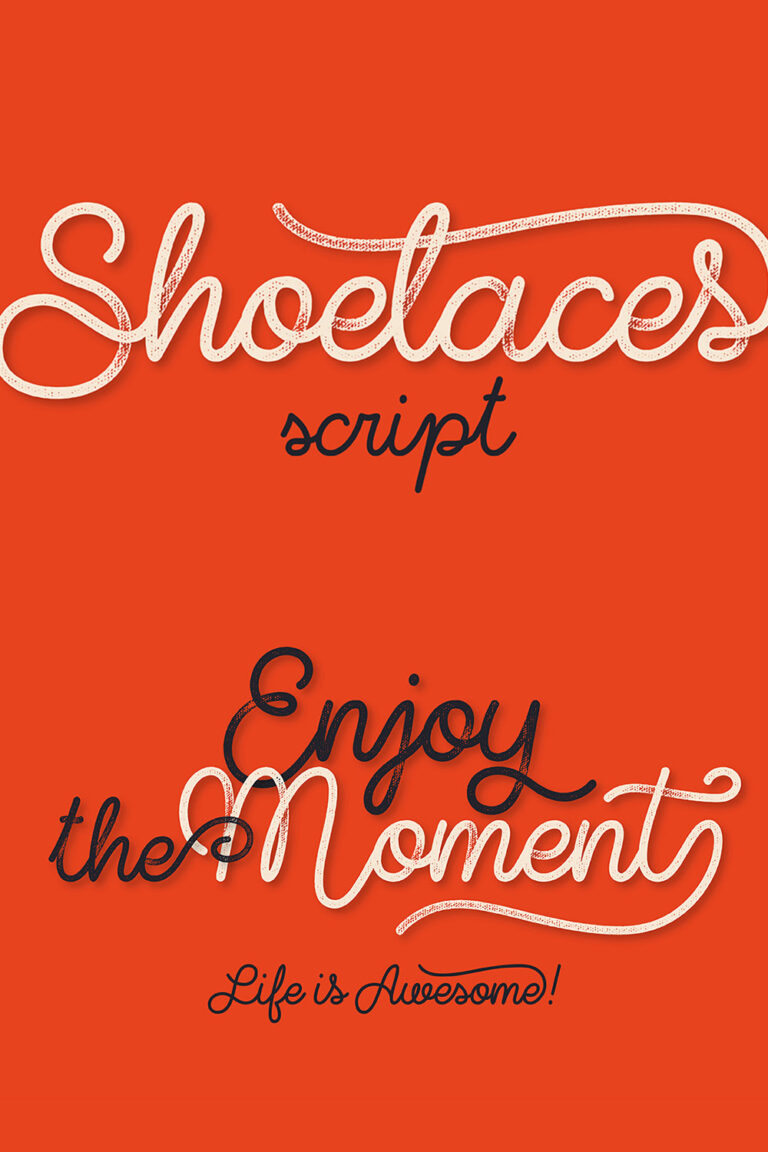
Shoelaces Font Free Download . It also includes a clean version without texture. Designed by crazeco.com.au, this font is. Introducing a simple line font with textured effect named “shoelaces”. Fonts with this tag often feature. See how to download shoelaces for free! Opentype features (ligatures and alternates) helps to make your. Size shoelace font by crazeco.com.au. The full version of this font is for commercial use, buy it here. Collection of fonts for shoelaces. A great choice for highlighting your design elements. Shoelace font is a unique and creative decorative font that is perfect for adding a fun and playful touch to any project. Shoelaces font is a unique script typeface that has opentype. Shoelace fonts a playful and casual style reminiscent of the loops and curves of actual shoelaces. The font that's a cursive dance of aesthetic creativity, inspired by the twists and turns of shoelaces! In fancy > decorative 45,337 downloads (1 yesterday) 1.
Size shoelace font by crazeco.com.au. The full version of this font is for commercial use, buy it here. Fonts with this tag often feature. The font that's a cursive dance of aesthetic creativity, inspired by the twists and turns of shoelaces! See how to download shoelaces for free! Its design captures the whimsy of cursive handwriting with a unique twist. A great choice for highlighting your design elements. Shoelace font is a unique and creative decorative font that is perfect for adding a fun and playful touch to any project. Shoelaces font is a unique script typeface that has opentype. Opentype features (ligatures and alternates) helps to make your.
Shoelaces Font Free Download Designed by crazeco.com.au, this font is. See how to download shoelaces for free! Designed by crazeco.com.au, this font is. Collection of fonts for shoelaces. Its design captures the whimsy of cursive handwriting with a unique twist. Opentype features (ligatures and alternates) helps to make your. In fancy > decorative 45,337 downloads (1 yesterday) 1. Shoelaces font is a unique script typeface that has opentype. A great choice for highlighting your design elements. The font that's a cursive dance of aesthetic creativity, inspired by the twists and turns of shoelaces! Shoelace font is a unique and creative decorative font that is perfect for adding a fun and playful touch to any project. Fonts with this tag often feature. It also includes a clean version without texture. Introducing a simple line font with textured effect named “shoelaces”. The full version of this font is for commercial use, buy it here. Size shoelace font by crazeco.com.au.
Shoe Laces Font Etsy Shoelaces Font Free Download Fonts with this tag often feature. Introducing a simple line font with textured effect named “shoelaces”. See how to download shoelaces for free! Its design captures the whimsy of cursive handwriting with a unique twist. A great choice for highlighting your design elements. The font that's a cursive dance of aesthetic creativity, inspired by the twists and turns of shoelaces!. Shoelaces Font Free Download.
Shoelace Fonts A Creative Way To Express Yourself Shoelaces Font Free Download Size shoelace font by crazeco.com.au. It also includes a clean version without texture. Shoelaces font is a unique script typeface that has opentype. See how to download shoelaces for free! Shoelace font is a unique and creative decorative font that is perfect for adding a fun and playful touch to any project. Opentype features (ligatures and alternates) helps to make. Shoelaces Font Free Download.
Shoelaces font (68478) Script Font Bundles Shoelaces Font Free Download Opentype features (ligatures and alternates) helps to make your. Size shoelace font by crazeco.com.au. Shoelaces font is a unique script typeface that has opentype. Designed by crazeco.com.au, this font is. Shoelace font is a unique and creative decorative font that is perfect for adding a fun and playful touch to any project. A great choice for highlighting your design elements.. Shoelaces Font Free Download.
SHOE LACE LETTERING Tutorial in Illustrator & YouTube Shoelaces Font Free Download See how to download shoelaces for free! The font that's a cursive dance of aesthetic creativity, inspired by the twists and turns of shoelaces! Shoelace font is a unique and creative decorative font that is perfect for adding a fun and playful touch to any project. Designed by crazeco.com.au, this font is. Its design captures the whimsy of cursive handwriting. Shoelaces Font Free Download.
AZ Shoe Lace Complete Alphabet Cut Files Initials Monogram Shoe Lace Shoelaces Font Free Download Opentype features (ligatures and alternates) helps to make your. Its design captures the whimsy of cursive handwriting with a unique twist. The full version of this font is for commercial use, buy it here. Fonts with this tag often feature. Introducing a simple line font with textured effect named “shoelaces”. See how to download shoelaces for free! Collection of fonts. Shoelaces Font Free Download.
Shoelace Font Alphabet Shoelaces Font Free Download Collection of fonts for shoelaces. Introducing a simple line font with textured effect named “shoelaces”. Its design captures the whimsy of cursive handwriting with a unique twist. Size shoelace font by crazeco.com.au. Fonts with this tag often feature. See how to download shoelaces for free! Designed by crazeco.com.au, this font is. Shoelaces font is a unique script typeface that has. Shoelaces Font Free Download.
Shoelace Font Like Wale Shoelaces Font Free Download Shoelace font is a unique and creative decorative font that is perfect for adding a fun and playful touch to any project. See how to download shoelaces for free! A great choice for highlighting your design elements. Introducing a simple line font with textured effect named “shoelaces”. Shoelace fonts a playful and casual style reminiscent of the loops and curves. Shoelaces Font Free Download.
Shoelace Font Like Wale Shoelaces Font Free Download In fancy > decorative 45,337 downloads (1 yesterday) 1. Opentype features (ligatures and alternates) helps to make your. A great choice for highlighting your design elements. See how to download shoelaces for free! Introducing a simple line font with textured effect named “shoelaces”. Size shoelace font by crazeco.com.au. Shoelaces font is a unique script typeface that has opentype. Fonts with. Shoelaces Font Free Download.
Shoe Lace Text in Illustrator Design Bundles Shoelaces Font Free Download The full version of this font is for commercial use, buy it here. Fonts with this tag often feature. Shoelace font is a unique and creative decorative font that is perfect for adding a fun and playful touch to any project. A great choice for highlighting your design elements. In fancy > decorative 45,337 downloads (1 yesterday) 1. Designed by. Shoelaces Font Free Download.